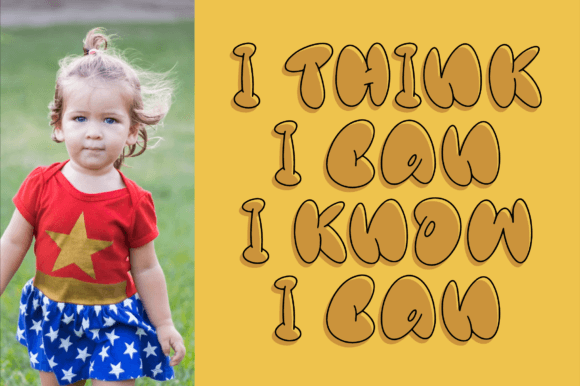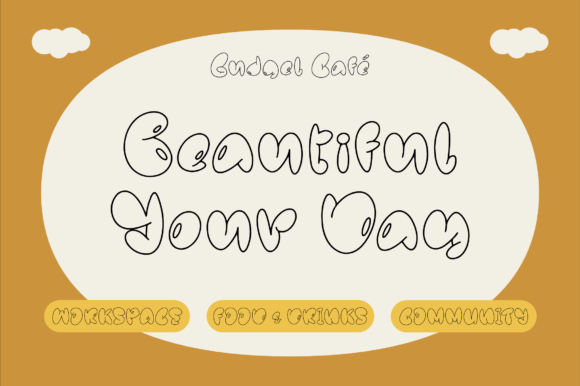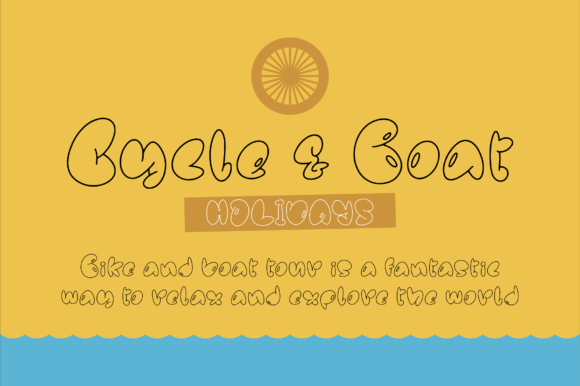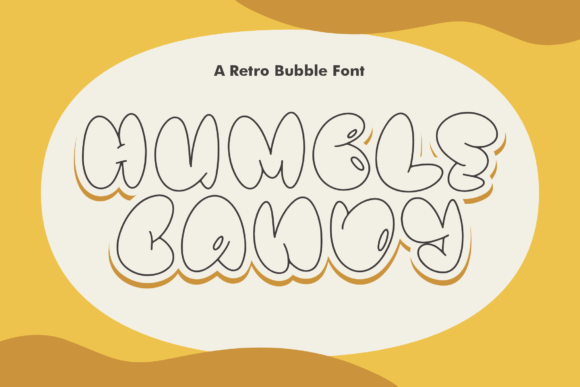
Introduction to Humble Candy Font
Humble Candy is a retro bubble font, suitable for any project such as logos, branding, homeware designs, product packaging, mugs, quotes, posters, shopping bags, t-shirts, book covers, name card, invitation cards, greeting cards, label, photography, watermark, special events, and all your other lovely projects that need a beautiful script taste.
Key Features of Humble Candy Font
Why Choose Humble Candy Font?
Humble Candy Font offers exceptional quality and versatility, making it a valuable addition to your design toolkit. Whether you’re creating for personal projects or commercial use, Humble Candy Font delivers professional results.